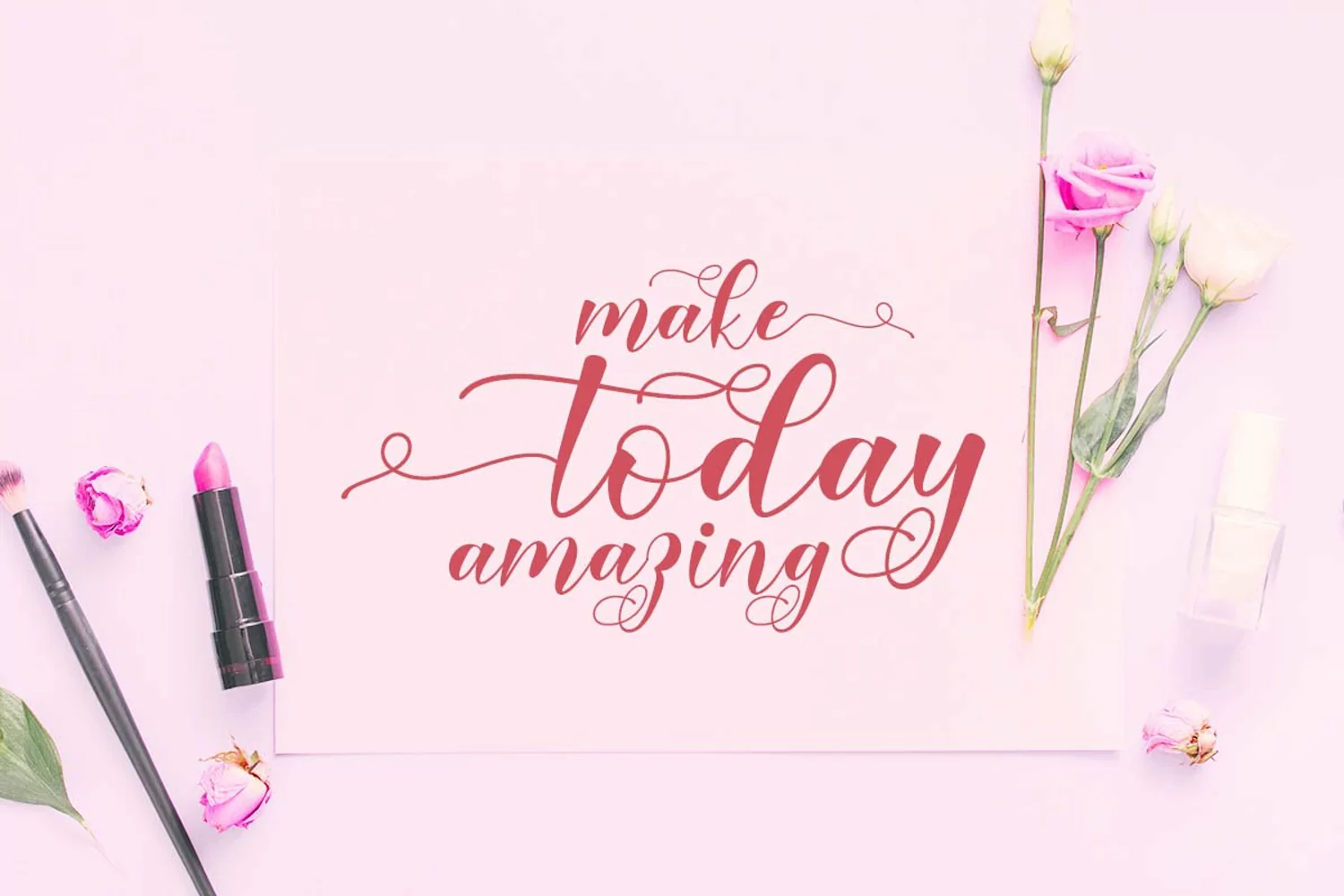
Say hello to Barelyn Script.
Barelyn is a beautiful and modern script.
It brings a beautiful and modern typeface that best used for weddings, branding, logotype, and quotes.:
- Beautiful Alternates + Swashes
- Numerals and Punctuation
- Beginning Swash and Ending Swashes (a-z)